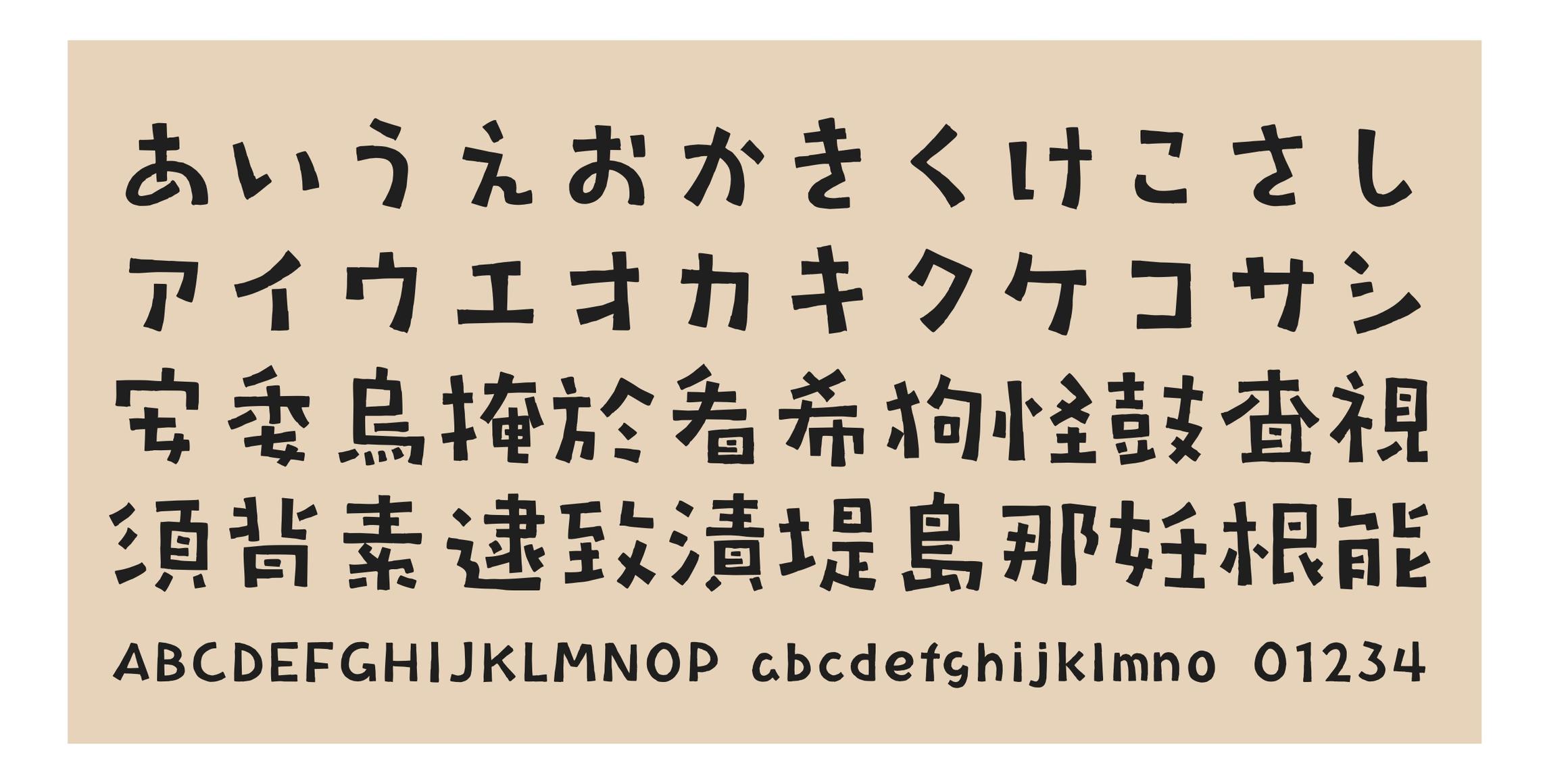
This font is designed with rough outlines, solid letters, and a unique interpretation of each character, unlike the existing Kwang Soo font with smooth outlines.
- Lee kyungbae Lee Ho
- Sandoll 광수뽀리 / Sandoll KwangsooBbori